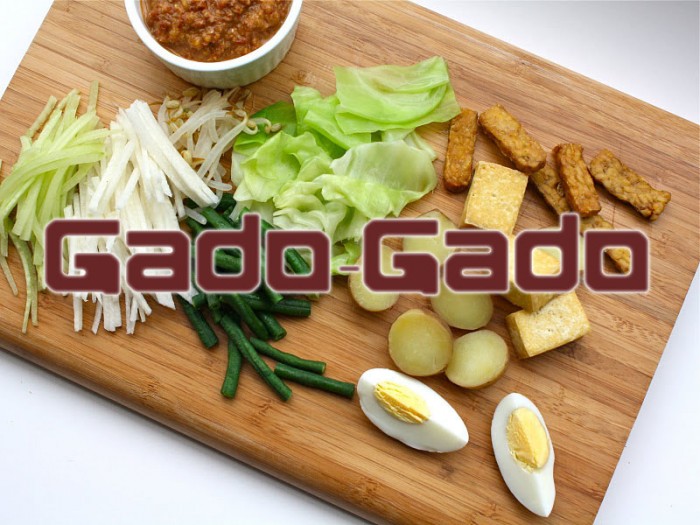
• This typeface adopted from Gado-Gado. Gado-gado is a deliciously comforting Indonesian mega salad served with crunchy prawn crackers and an incridibly delicious peanut dressing. This typeface look like tofu and circle of egg (bunder buktek-bunter kotak)
i like it, this is cool xD
so great! well done :)
The "L", "O", "i", and "l" are not quite match tho
yes this is tofu-looking typeface but where is the egg?
a little stiff but still okay, well done!
i want to make it more rounded font so it will look like egg, but i have some problem using fontstruct
bagus hestiaa
Typeface-nya ada kesan maskulin ya (?) ^^' Bagus kok tapi :) Enak dibaca, jelas.
bold fonts! but please take a look on your 'm'.. i think the gap between the curves should be larger :)
Bagus! Konsisten dan rapi sekali!
Baguss, simple dan enak dilihat! Good job!
cute font! goodjob
simple, konsisten, rapi, good jobb :D
tofu looking font, its cute! :3
Cute font :3
very neat and consistent! Great job:)
Cool font!
Nice and consistent font!
Adjusting the width of letter L would perfect it :)
Cool
the "o" doesn't match(?) but overall I like it :D
Hurufnya tebel tebel, kereeen huruf lowercase nya udah keliatan konsissten banget kok, huruf besarnya belum terlihat karena memang baru dibuat 3 huruf,
lanjutkan, well done!
nice font hes
Nice and consistent! Great work
Good job!
creative font! goodjob
Hallo... fontnya keren, rapih tapi perhatiin lebar huruf uppercase sama lebih dimodif lagi biar lebih keren... good job
Tofuu ! Great job hes , so bold and catchy .
Good-shaped! Probably need a little fix with the height of 'i', but overall, nice work!
nice
Like it!!!
so bold, good job
Nice and consistent
goodjob hes
simple, nice, consistent!
Bagus, cuma uppercase "L"nya mungkin perlu dilebarin...
Nice and consisten GOOD JOB
is that L? if yes maybe you should add more bricks to the bottom. anyway good job